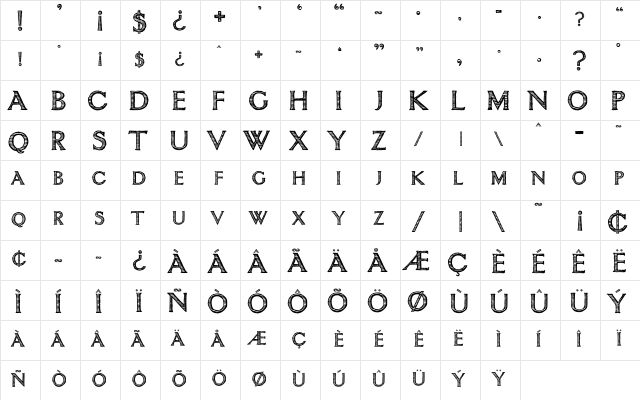
tsp cherub rock 1 Regular
Design Context for tsp cherub rock 1 Typeface
tsp cherub rock 1 is a composed and adaptable typeface that performs quietly and consistently across a wide range of design contexts.